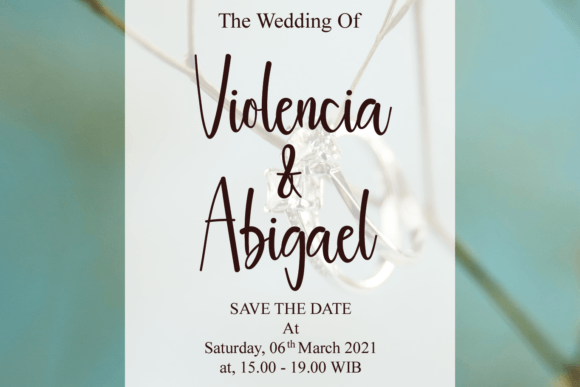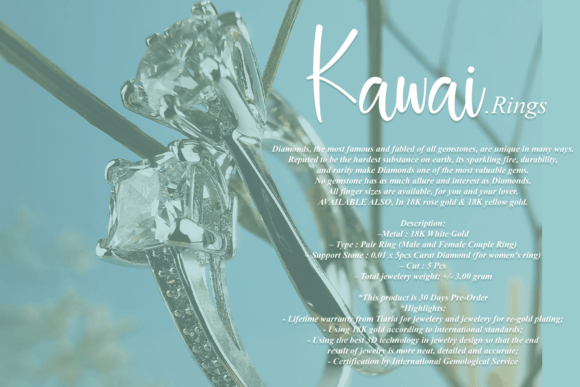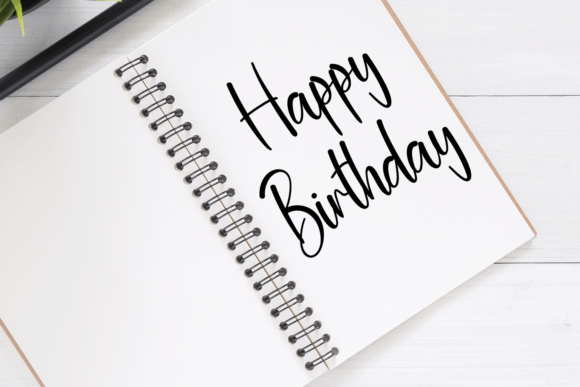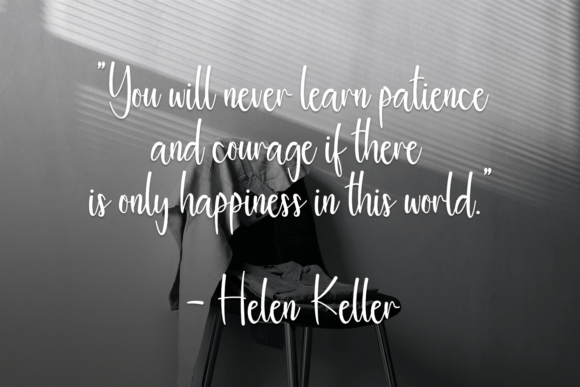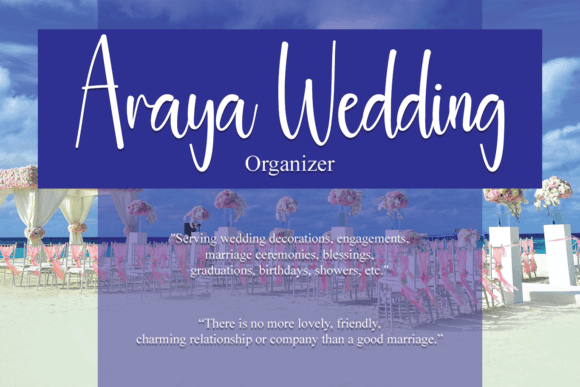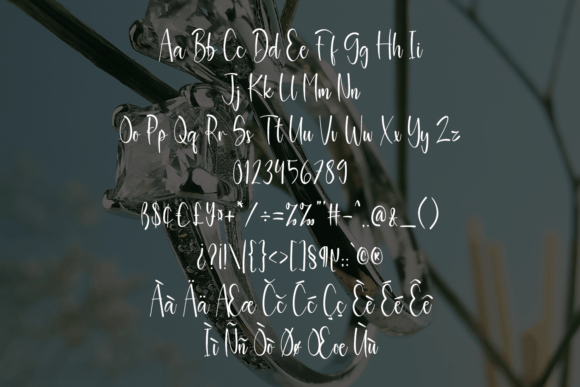
Babies Font
About Babies Font
Babies, an exquisite handwritten font, is masterfully designed to become a true favorite in your font collection. It effortlessly combines classy calligraphic influences with a contemporary and fresh feel, creating a font that is both timeless and modern. Falling in love with Babies allows you to elevate your projects to the highest levels of style and sophistication.
The charm of Babies lies in its delicate and refined handwritten strokes, which maintain a sense of elegance and grace. The font’s design seamlessly blends classic calligraphy with a modern twist, making it versatile and suitable for a variety of creative projects.
Consider incorporating Babies into your designs where a touch of class and sophistication is desired. Whether you’re working on wedding invitations, luxury branding, or any project that demands a refined aesthetic, Babies adds a level of elegance that sets your creations apart.
The exquisite design of Babies allows it to transcend various design contexts, from digital platforms like websites and social media to print materials such as invitations, posters, and packaging. Babies becomes an essential element in crafting visuals that exude a timeless and contemporary fusion.
In essence, Babies is not just a font; it’s a design asset that brings a perfect balance of classic and modern influences to your projects. As you fall in love with Babies, you’ll discover its ability to transform your designs, adding a touch of sophistication and elevating them to the highest levels of visual appeal. Embrace the elegance of Babies and let it become a true favorite in your creative endeavors.